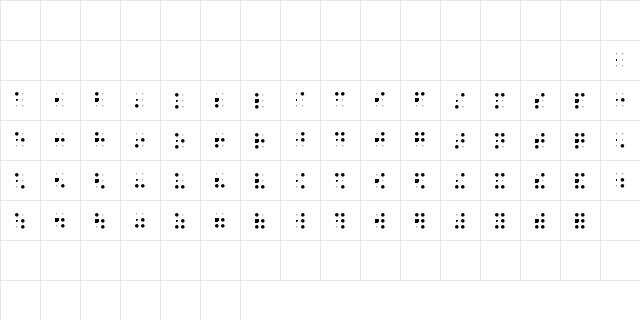
Index Braille Font Regular
Design Context for Index Braille Font Typeface
Index Braille Font is a composed and adaptable typeface that performs quietly and consistently across a wide range of design contexts.